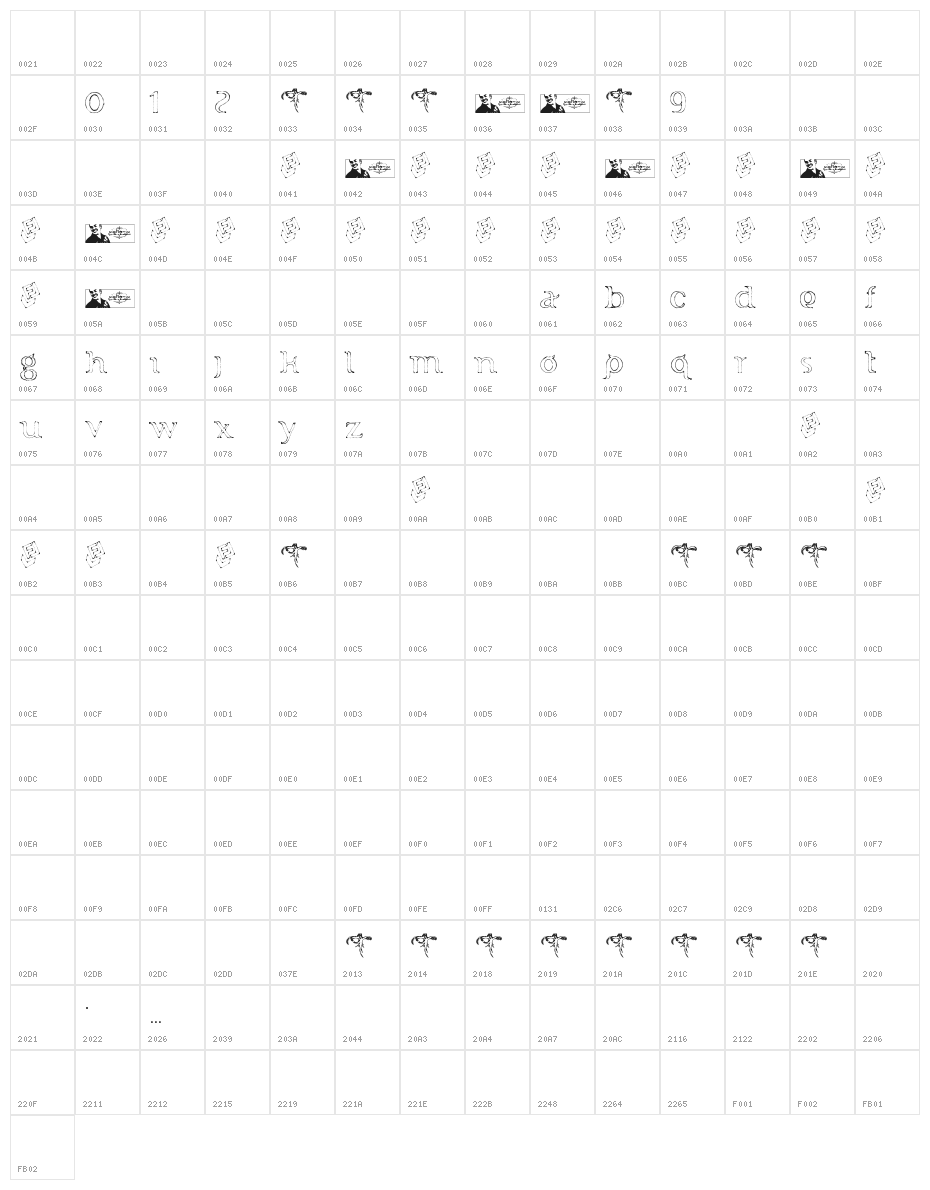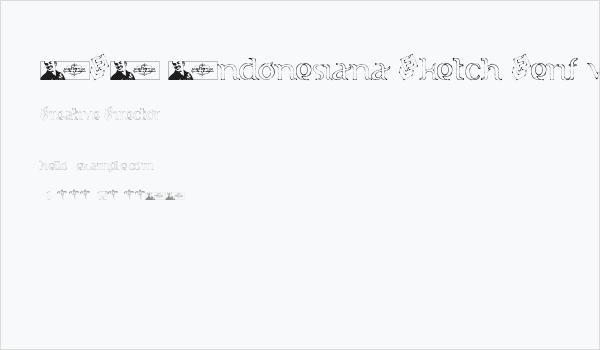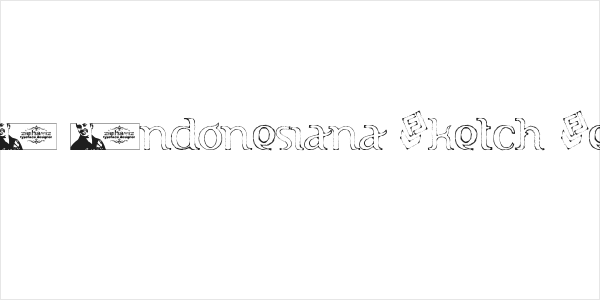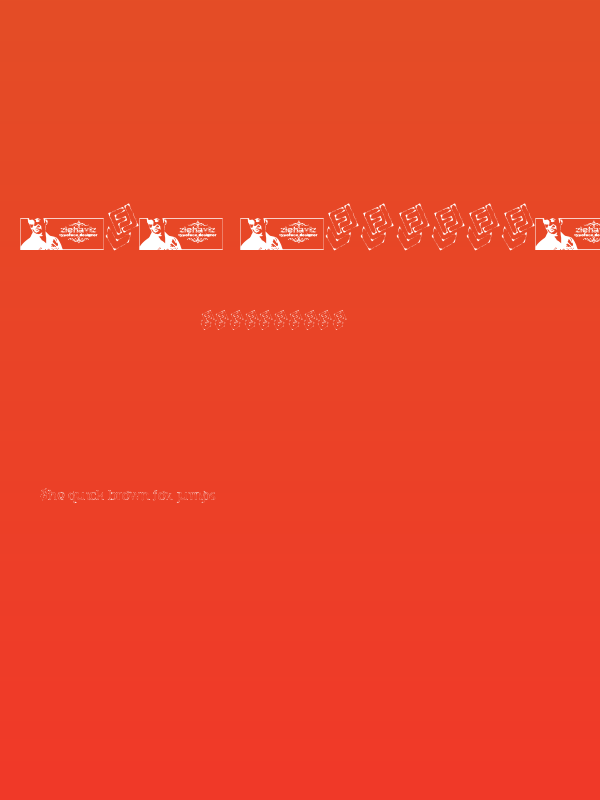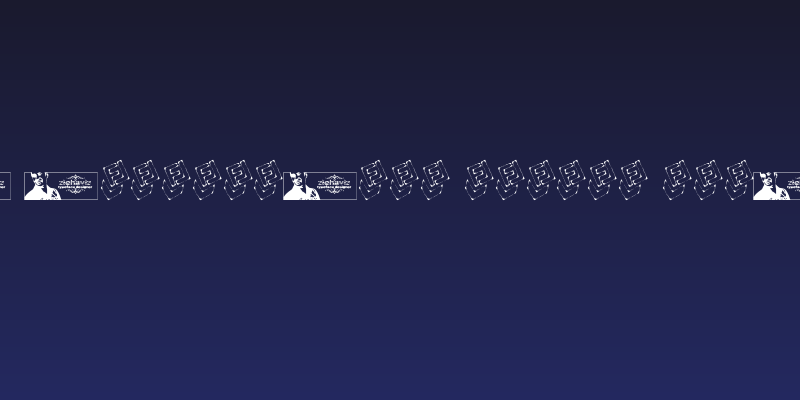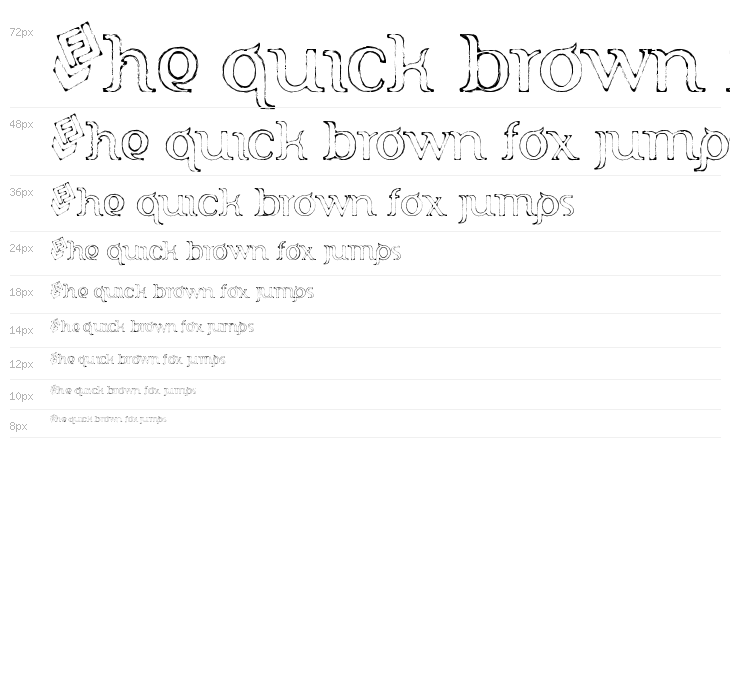
FTF Indonesiana Sketch Serif v.1 Font
FTF Indonesiana Sketch Serif v.1 Description
This font features a unique sketch-like appearance with serif elements, giving it a hand-drawn and artistic feel. The uppercase and lowercase letters maintain a consistent style, with decorative flourishes that add a touch of elegance. The numerals and special characters are equally stylized, incorporating intricate details that enhance the overall aesthetic. The font's design is reminiscent of vintage typography, yet it maintains a modern twist with its sketchy texture. This combination of classic serif structure and contemporary artistic flair makes it versatile for various creative applications.
Use CaseLogos, Headlines, Artistic projects
Proposed ProjectsIdeal for creative projects such as invitations, posters, branding, and packaging design where a touch of elegance and artistry is desired.